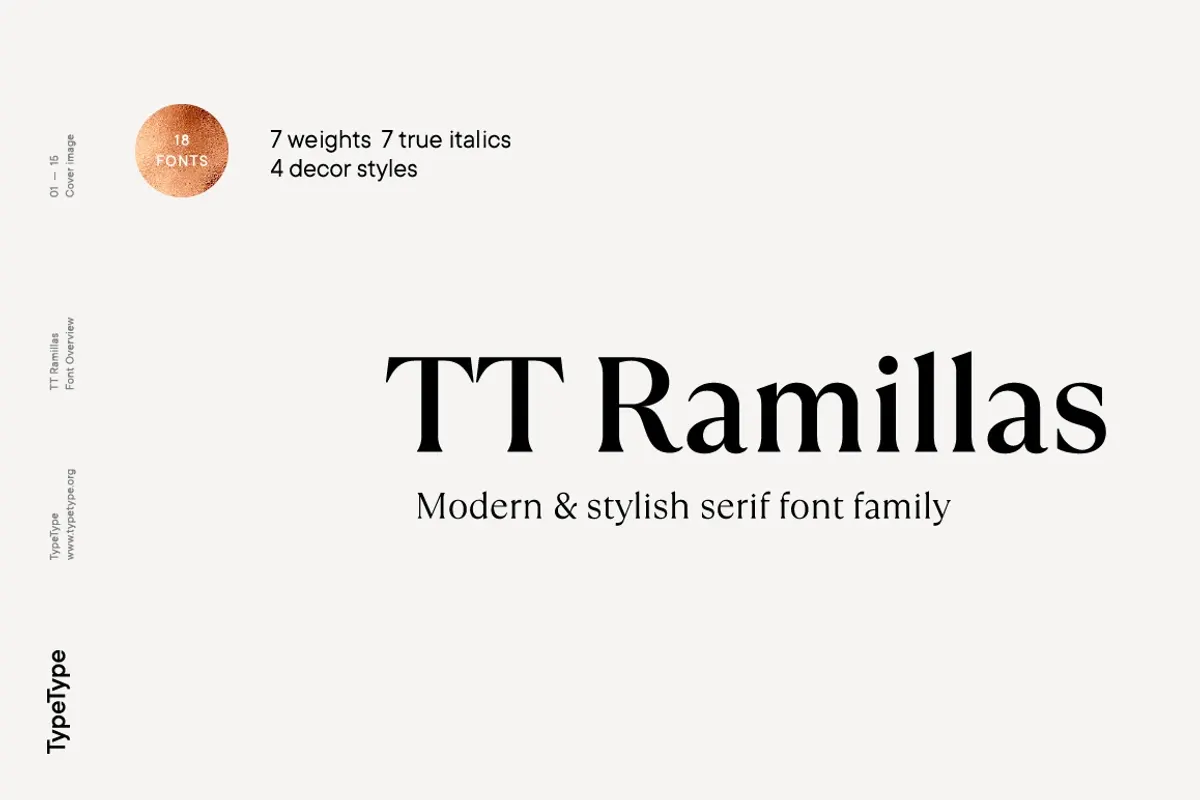
TT Ramillas Font Free Download is a sophisticated and versatile typeface that features a modern take on classic serif design, with clean lines and subtle curves. With its elegant proportions and timeless structure, TT Ramillas is perfect for branding, editorial designs, websites, and high-end packaging that requires a touch of luxury and professionalism.
TT Ramillas Font Free Download offers great legibility and style, making it a solid choice for both display and body text. Whether you're creating a refined logo, designing a sophisticated magazine layout, or working on premium product branding, TT Ramillas brings clarity and elegance to your project. Download it today and enhance your design work with the sleek, contemporary feel of TT Ramillas!